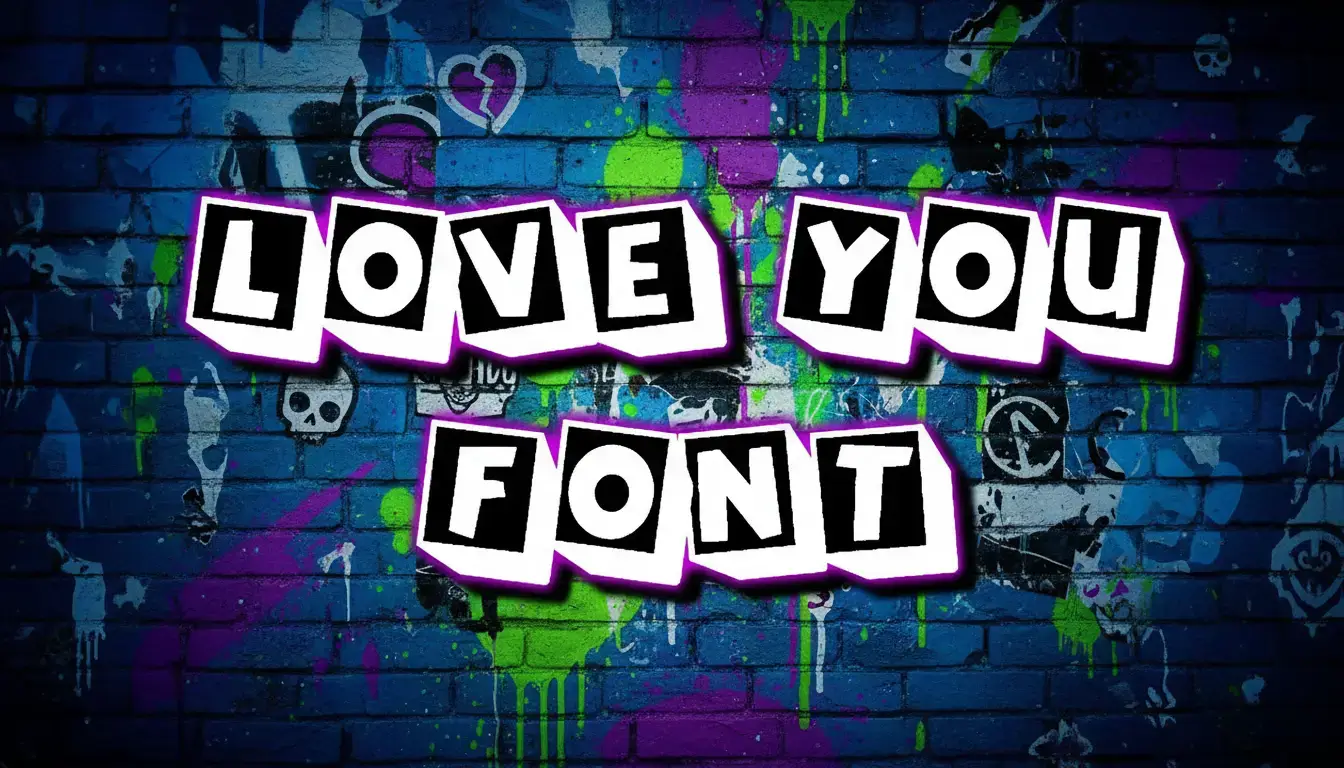
Love You Font
Love You is a fancy font. It's a decorative display font with plenty of personality, made to grab attention. It's a free download, and you can try it with your own text in the preview above first.
What You Can Type With Love You
Love You covers the full alphabet in upper and lowercase, plus all ten numbers, so you can set names, dates and prices without switching fonts. Common punctuation such as &, !, ? and @ is included as well. It doesn't include accented letters such as é or ñ, which makes it an English-only font.
Where Love You Works Best
Think of Love You for posters, logos and eye-catching headlines. Use it for one standout word or headline and let simpler fonts handle the rest.
Does Love You support accented letters?
No. Love You has no accented letters such as é, ñ or ü, so it's best for English text.